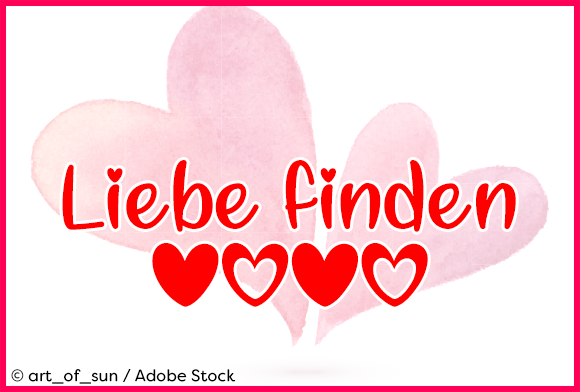
Liebe Finden Font
About Liebe Finden Font
Liebe finden is a beautiful typeface with special symbols:
Type * (asterisk) for the solid heart
Type | (bar) for the open heart